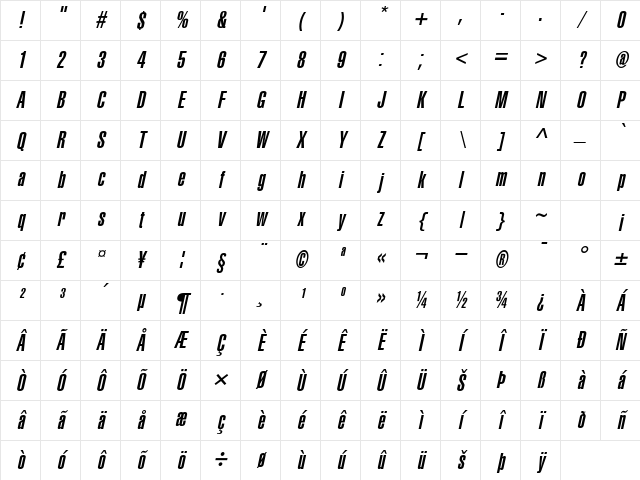
CorporateCompressedUltra is a composed and adaptable typeface that performs quietly and consistently across a wide range of design contexts. The slanted form adds forward momentum and visual energy.
Pro Tip: Use CorporateCompressedUltra for emphasis, pull quotes, and subheadings where its slanted energy can add rhythm to the layout.